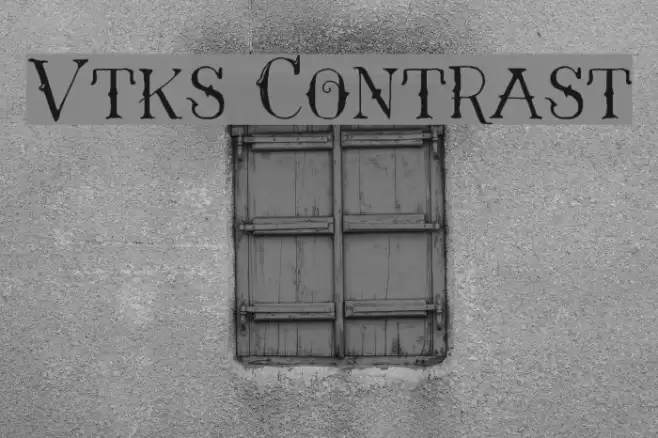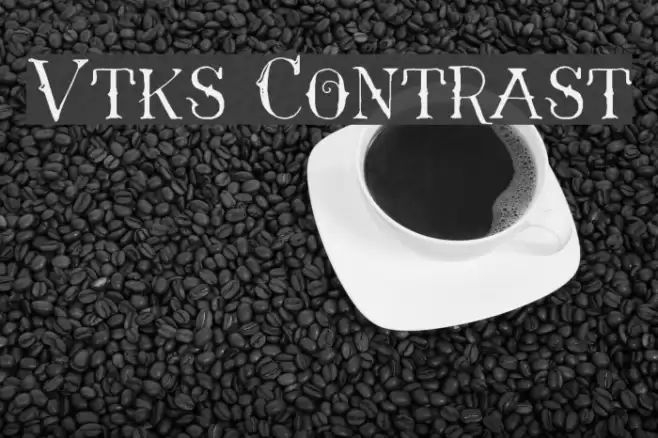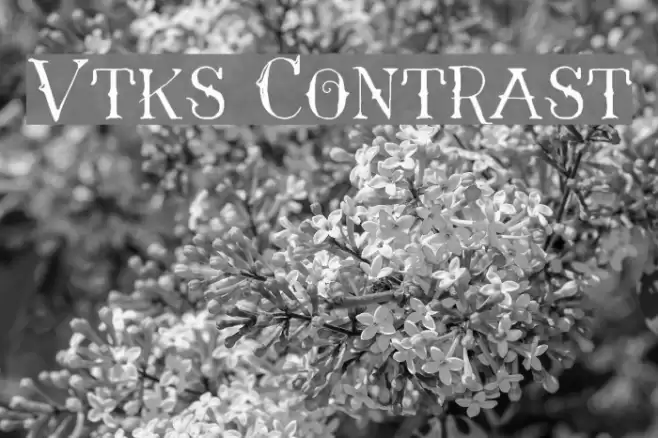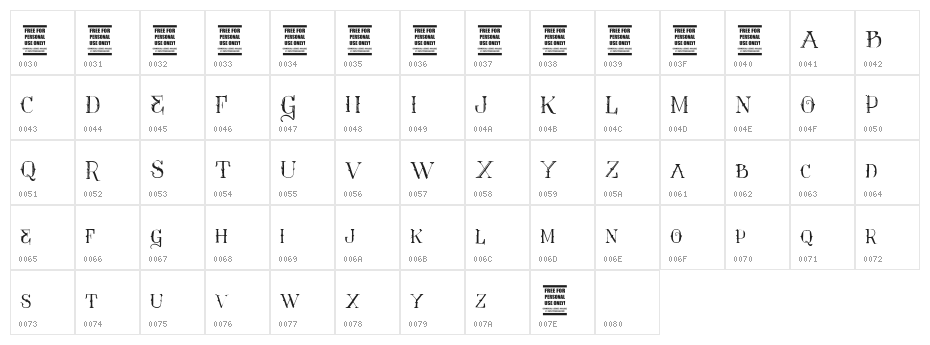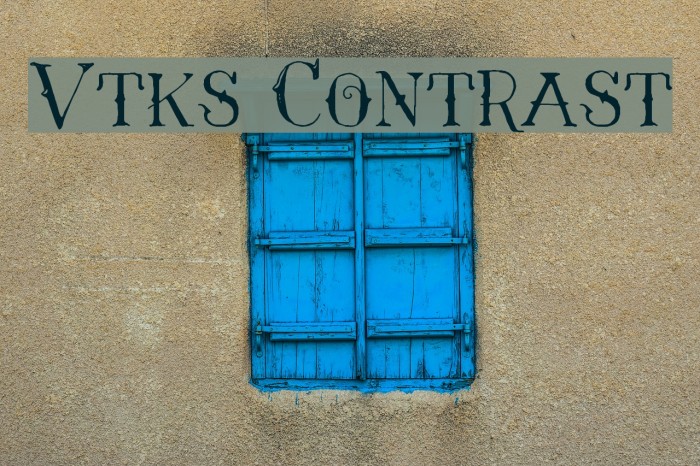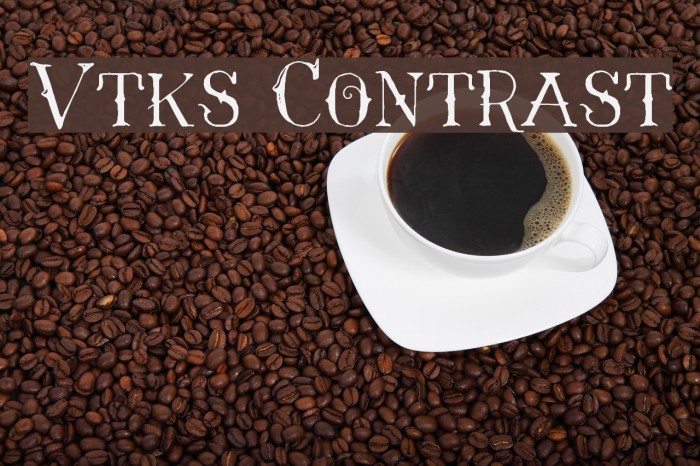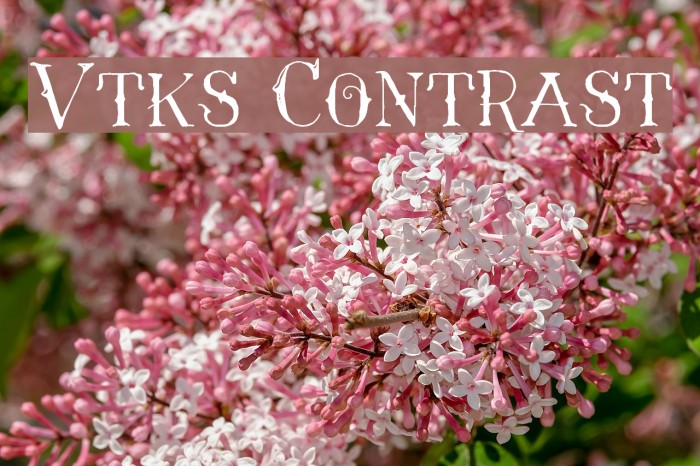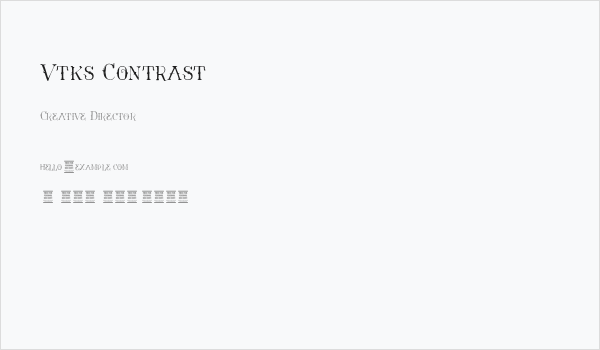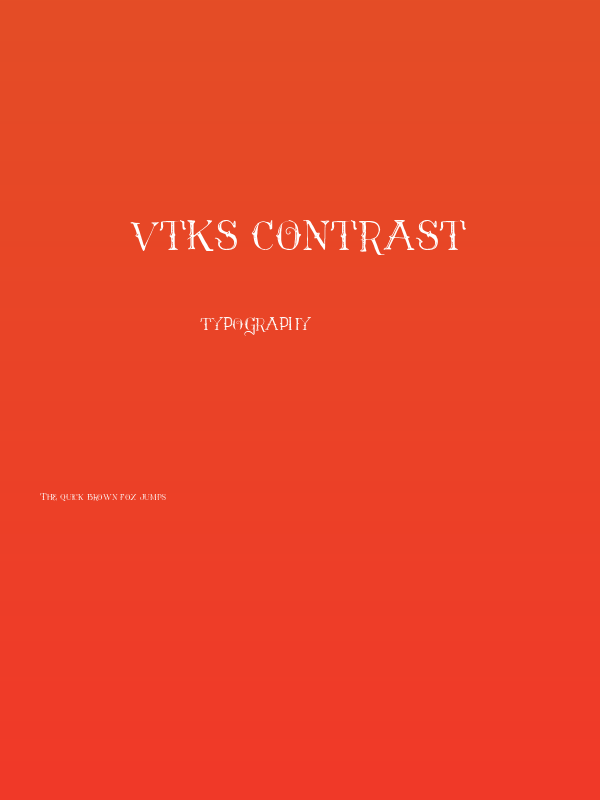
Vtks Contrast Font
Vtks Contrast Description
This font features a dramatic and artistic style with high contrast between thick and thin strokes, creating a striking visual impact. The characters are adorned with decorative elements, giving them a unique and ornate appearance. The uppercase letters exhibit a bold and commanding presence, while the lowercase letters maintain a consistent style. The overall design is reminiscent of vintage or gothic influences, making it suitable for projects that require a touch of elegance and flair. The font's intricate details and embellishments make it stand out, ensuring that any text set in this typeface will capture attention.
A decorative font with high contrast and ornate details, ideal for eye-catching designs from Uncategorized fonts.
- Proposed Projects: Perfect for use in posters, logos, book covers, and any design that requires a dramatic and artistic touch.
- Overall Style: Vintage, Gothic